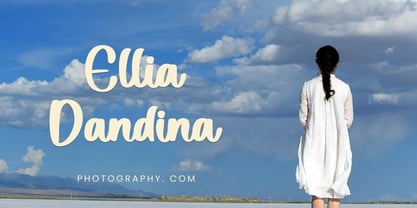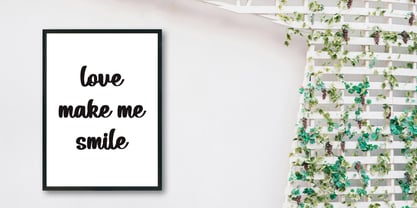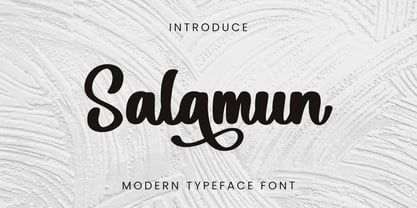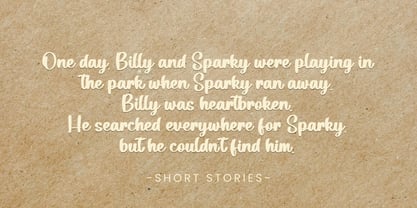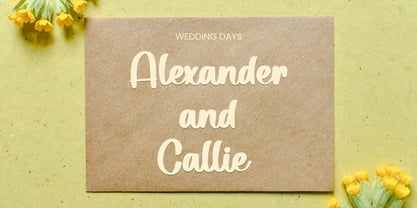
Salamun
by Ayska
The Salamun Font Family was designed by Dhoni Trihatmoko and published by Ayska. Salamun contains 1 styles. More about this family
Introducing "Salamun" - A pretty vintage display font. This font is suitable for all your creative designs. With a modern style and smooth curves, this font will beautify your creations both in digital and printed forms such as invitations, banners, advertisements, websites, letterheads, packaging products, brochures, social media and more.